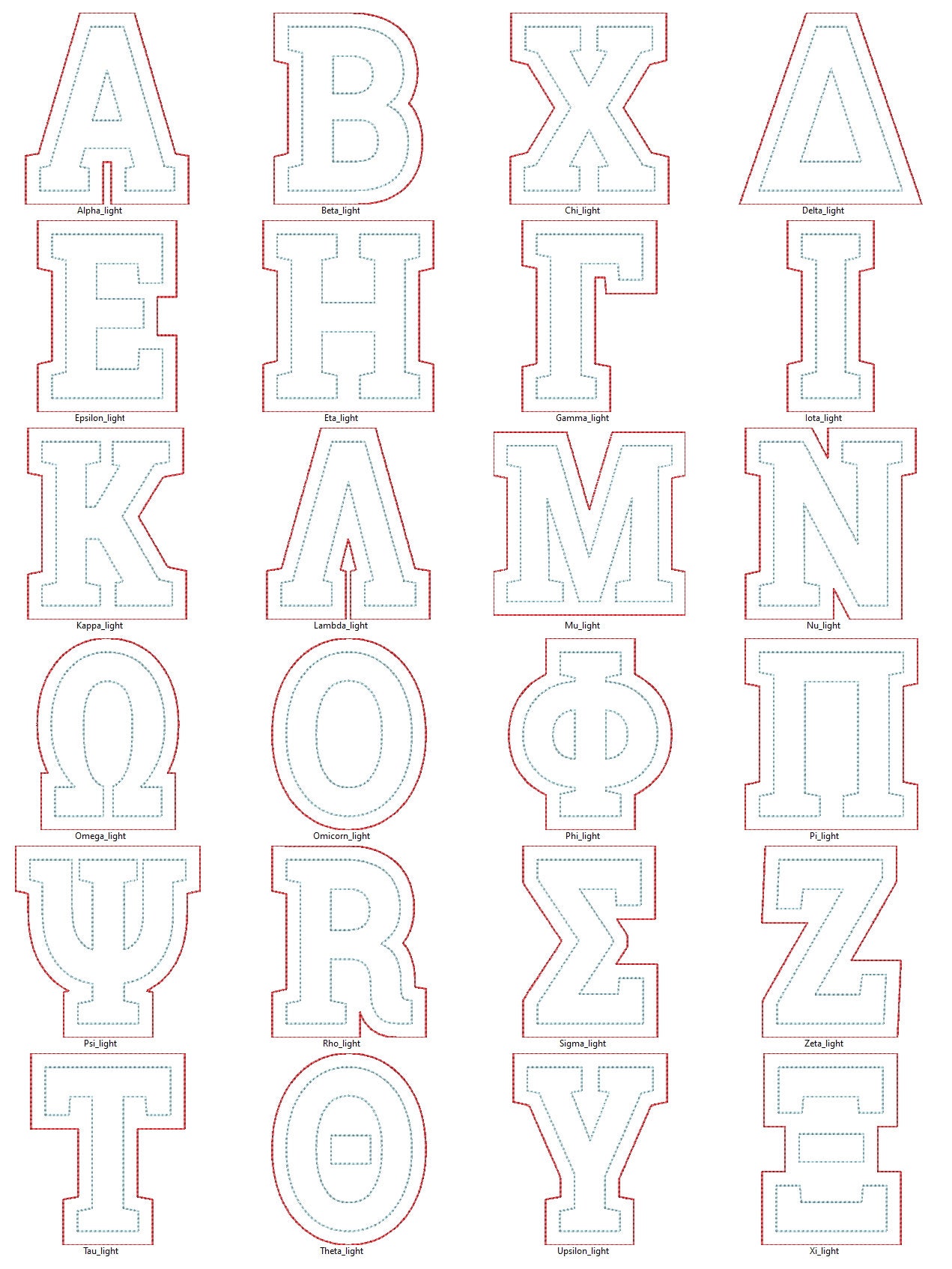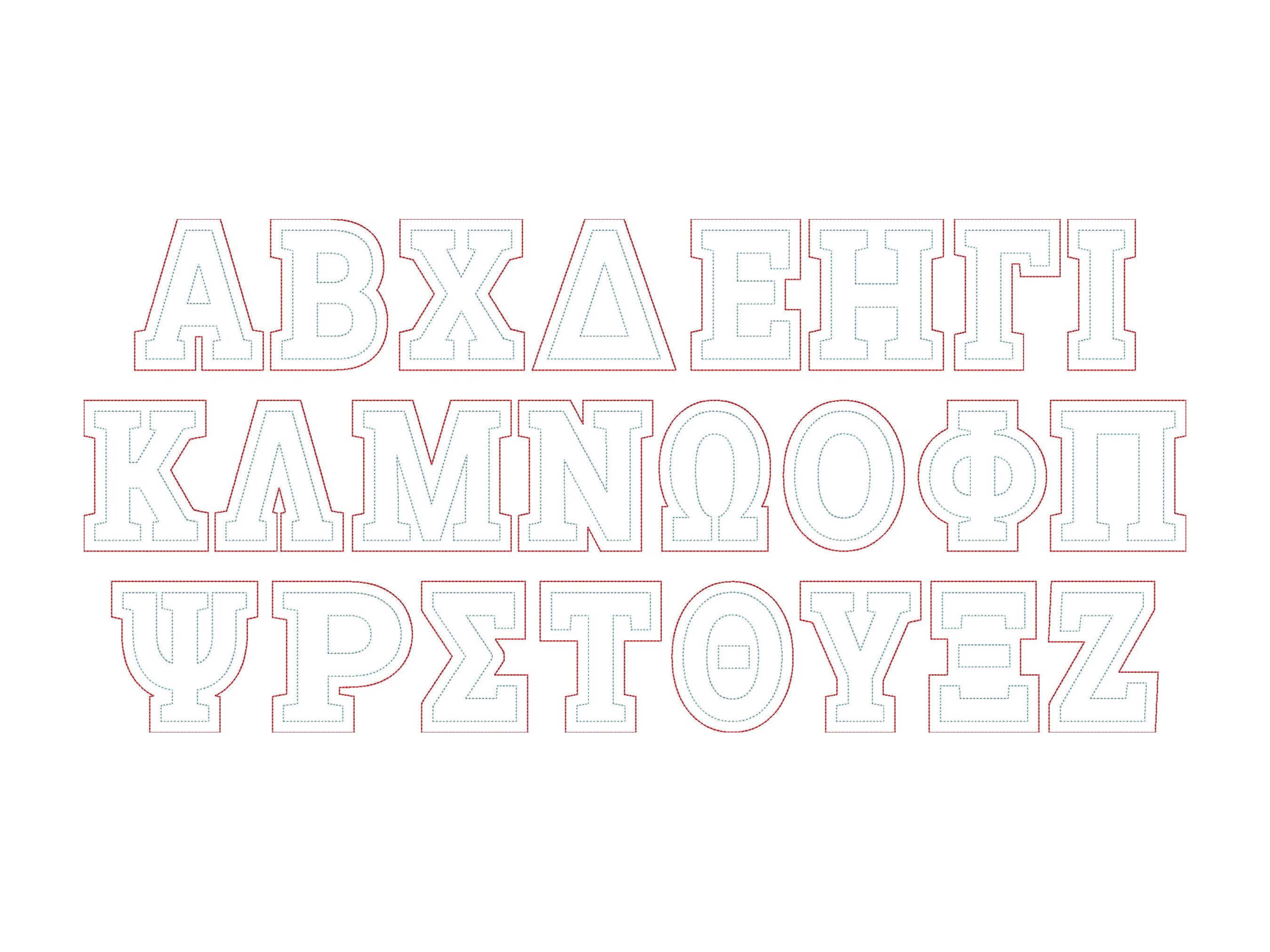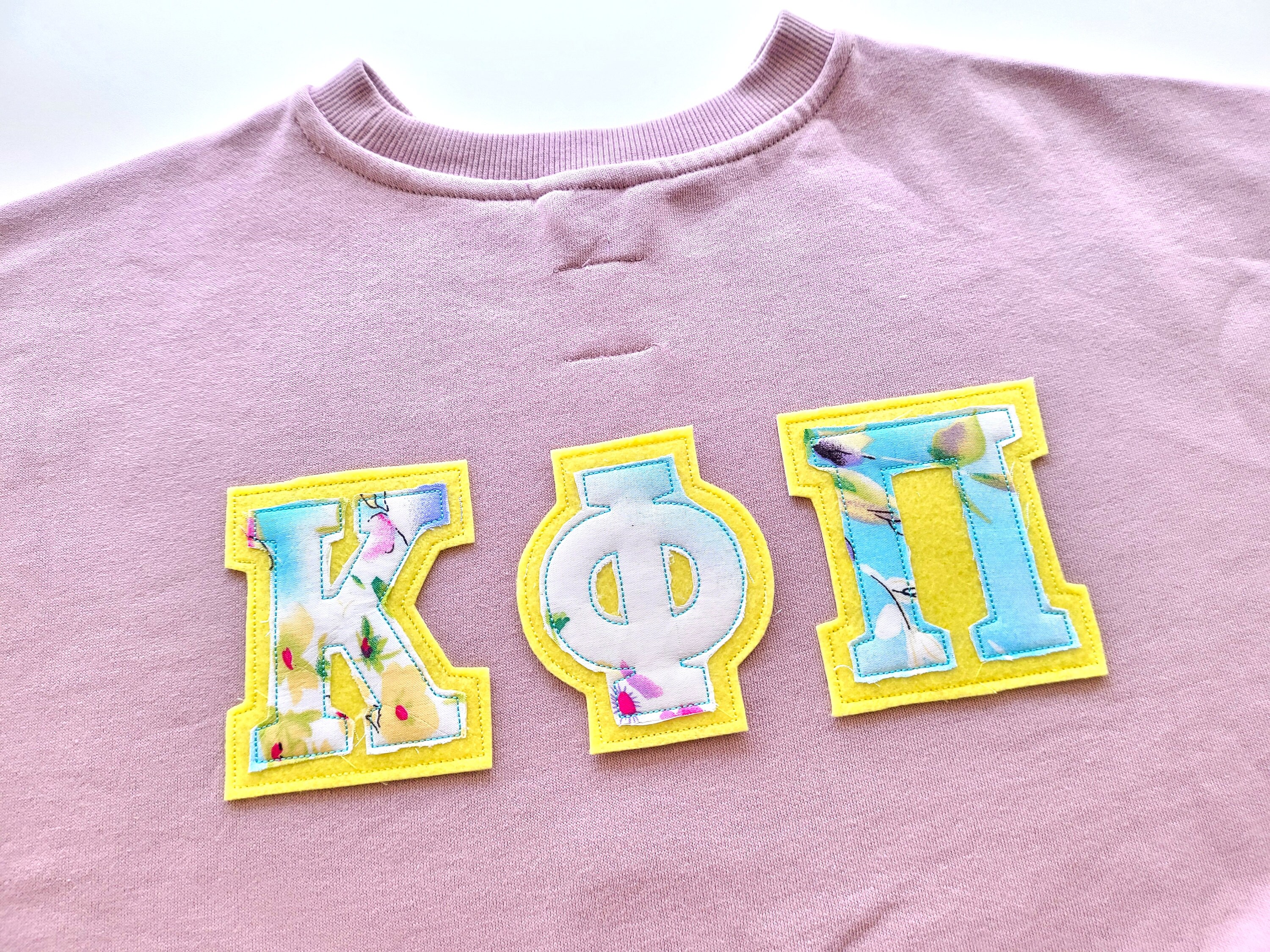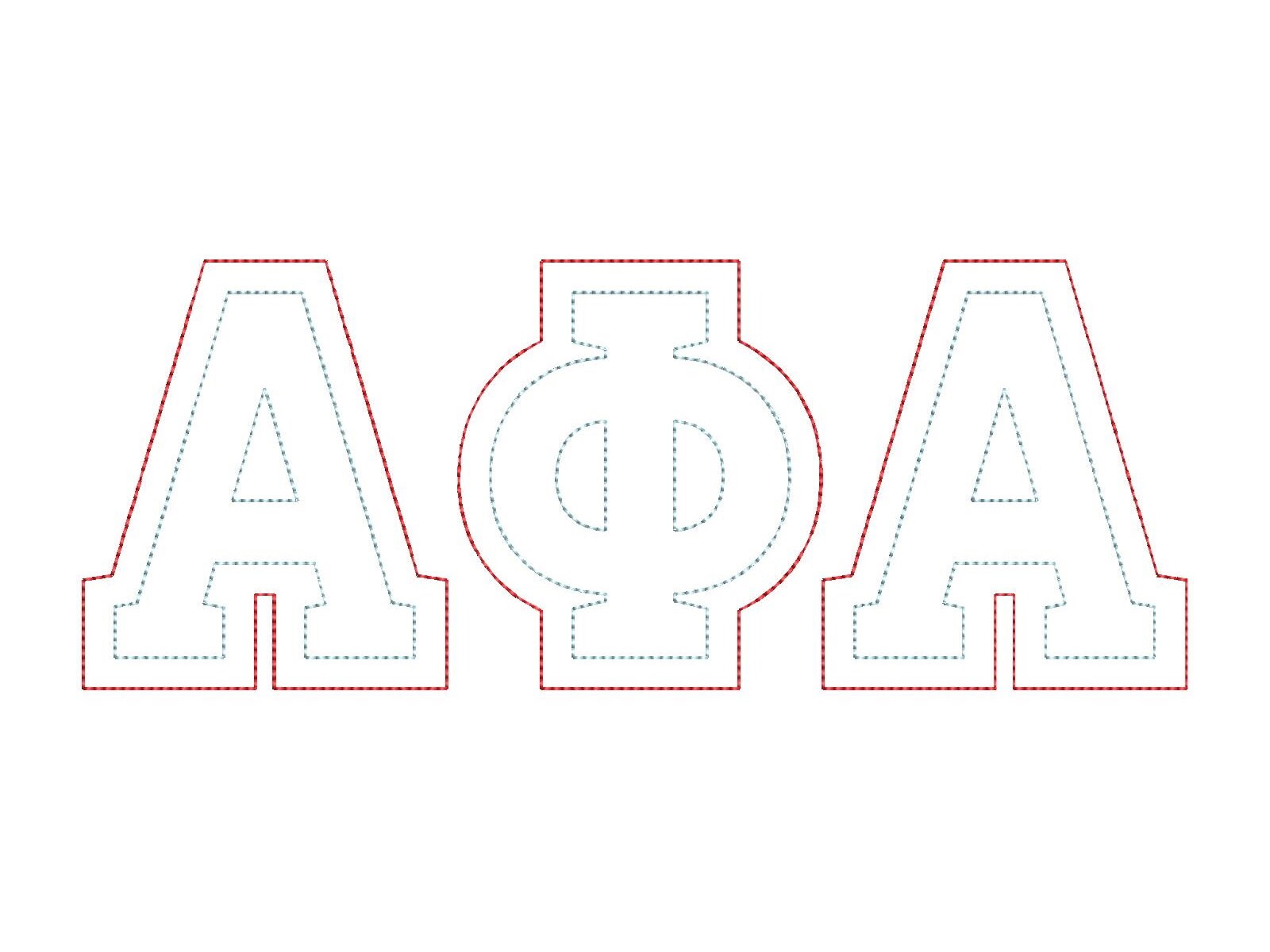
Simple GREEK outline FONT raggedy edge applique Greek alphabet Alpha Beta gamma theta applique machine embroidery designs many sizes and BX included
Applique letters with raggedy edge